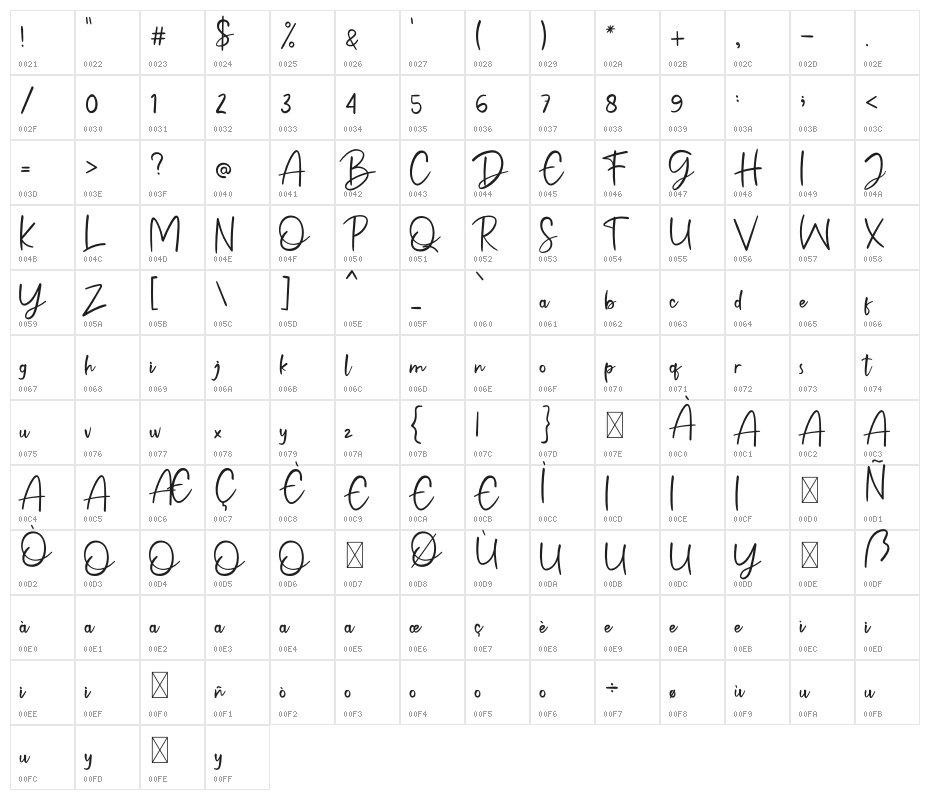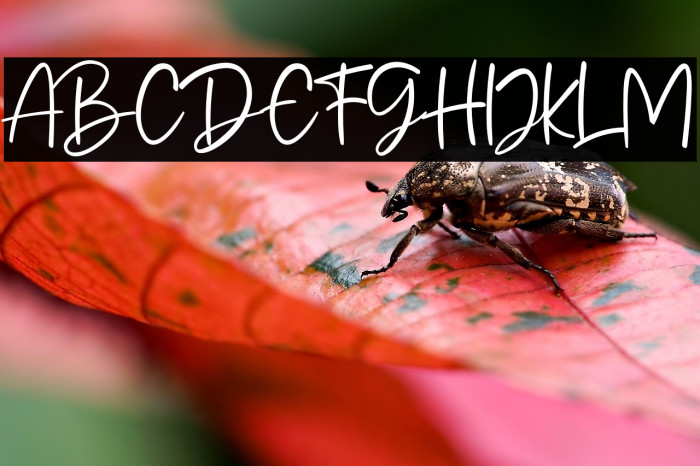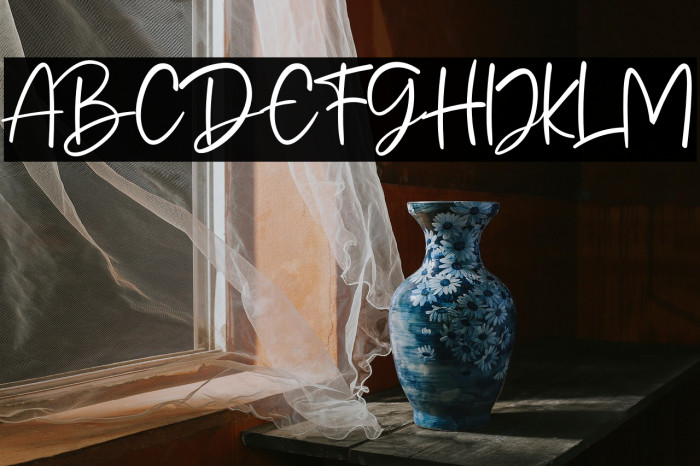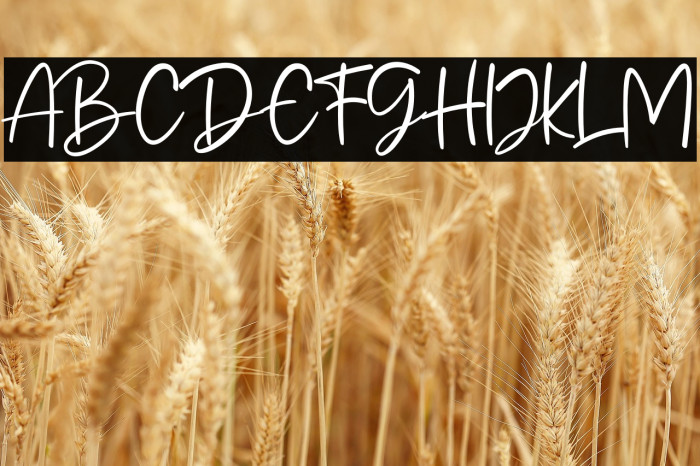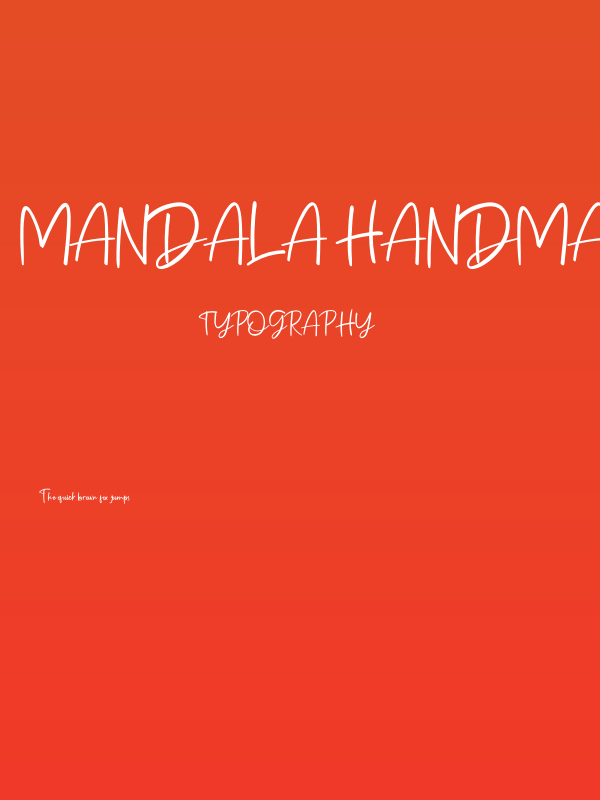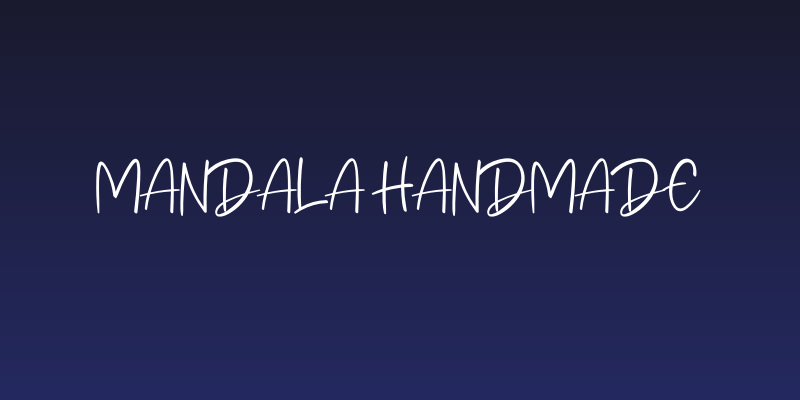
Mandala Handmade Font
Mandala Handmade Description
This font features a playful and artistic handwritten style, characterized by its fluid and continuous strokes. The uppercase letters are tall and slightly narrow, with a whimsical flair that adds a touch of elegance. The lowercase letters maintain a consistent flow, enhancing readability while preserving the font's unique charm. Numbers and special characters are crafted with the same attention to detail, ensuring a cohesive look across all elements. The overall design exudes a sense of creativity and personal touch, making it ideal for projects that require a friendly and approachable aesthetic.
| Proposed Projects | Ideal for greeting cards, invitations, personal branding, and creative projects. |